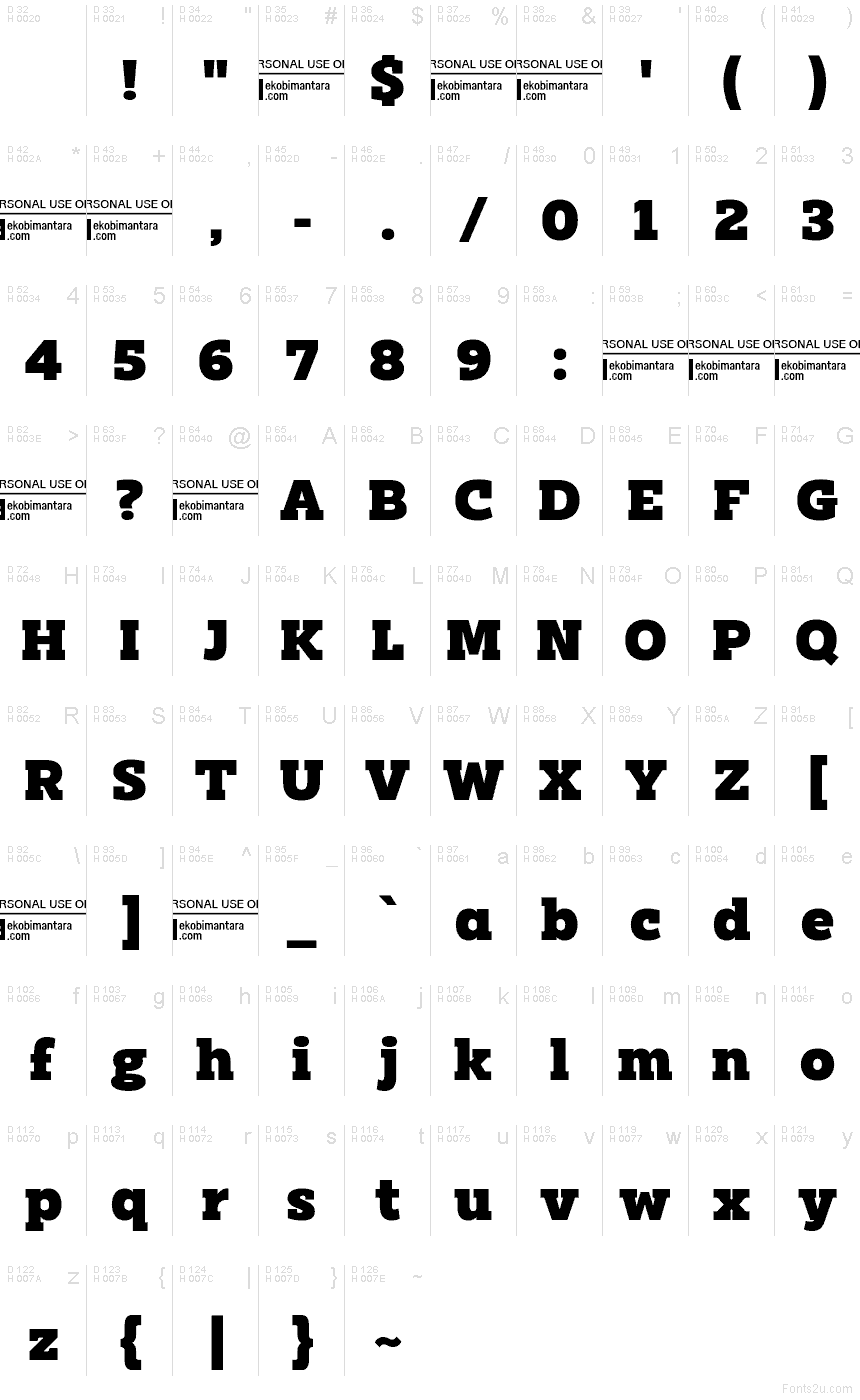
Clab Trial Black
Clab Black font by Eko Bimantara is a free black slab‑serif font. Built within the Clab family, it marries blocky, confident slabs with rounded corners and deep, scooped counters, so the letters feel hefty without turning harsh. The strokes land with poster-ready weight, while the softened edges keep the tone friendly and modern.
This free font shines on bold posters, food and beverage packaging, sports branding, storefront signage, magazine covers, and punchy social graphics. Its tight rhythm and generous forms hold up at large sizes and short headlines where impact matters. Pair Clab Black with a clean, light sans for body text, or track it slightly open to let those chunky curves breathe.